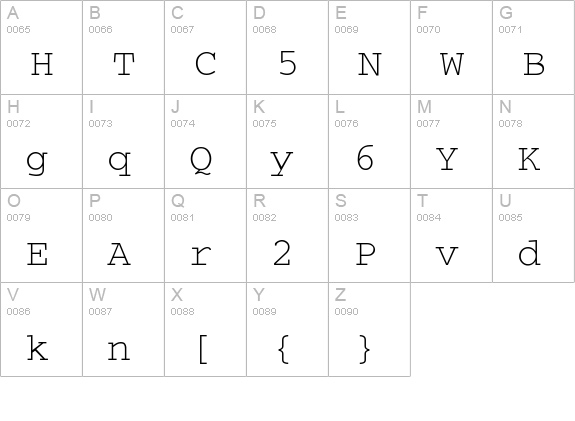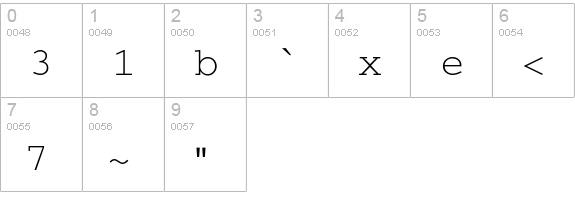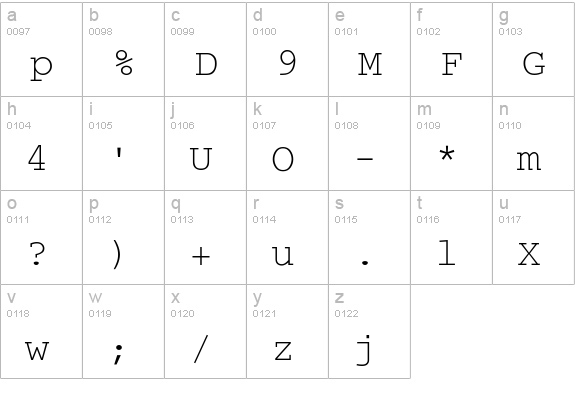
UncodeSecret Font Details
UncodeSecret is a captivating and versatile font that adds a touch of mystery and intrigue to any design project. With its unique blend of elegant curves and bold lines, this font captures the essence of secrecy and hidden messages. The UncodeSecret font is not only visually stunning, but it also offers a wide range of characters and glyphs, making it perfect for creating eye-catching headlines, logos, and branding materials. It effortlessly combines an air of sophistication with a hint of playfulness, making it suitable for a variety of design styles. One of the best things about UncodeSecret is that it is freely available to download at FontsMarket.com. Yes, that's right, this incredible font can be yours without spending a dime. It's a rare opportunity to get your hands on such a high-quality font without breaking the bank. Whether you're a graphic designer, a marketing professional, or simply someone who appreciates beautiful typography, UncodeSecret is a font that you don't want to miss out on. Its versatility and visually striking appearance are sure to make a lasting impression on anyone who sees it. So why wait? Head over to FontsMarket.com and download UncodeSecret today. Let your creativity run wild and unlock the secrets of stunning design with this free and captivating font.